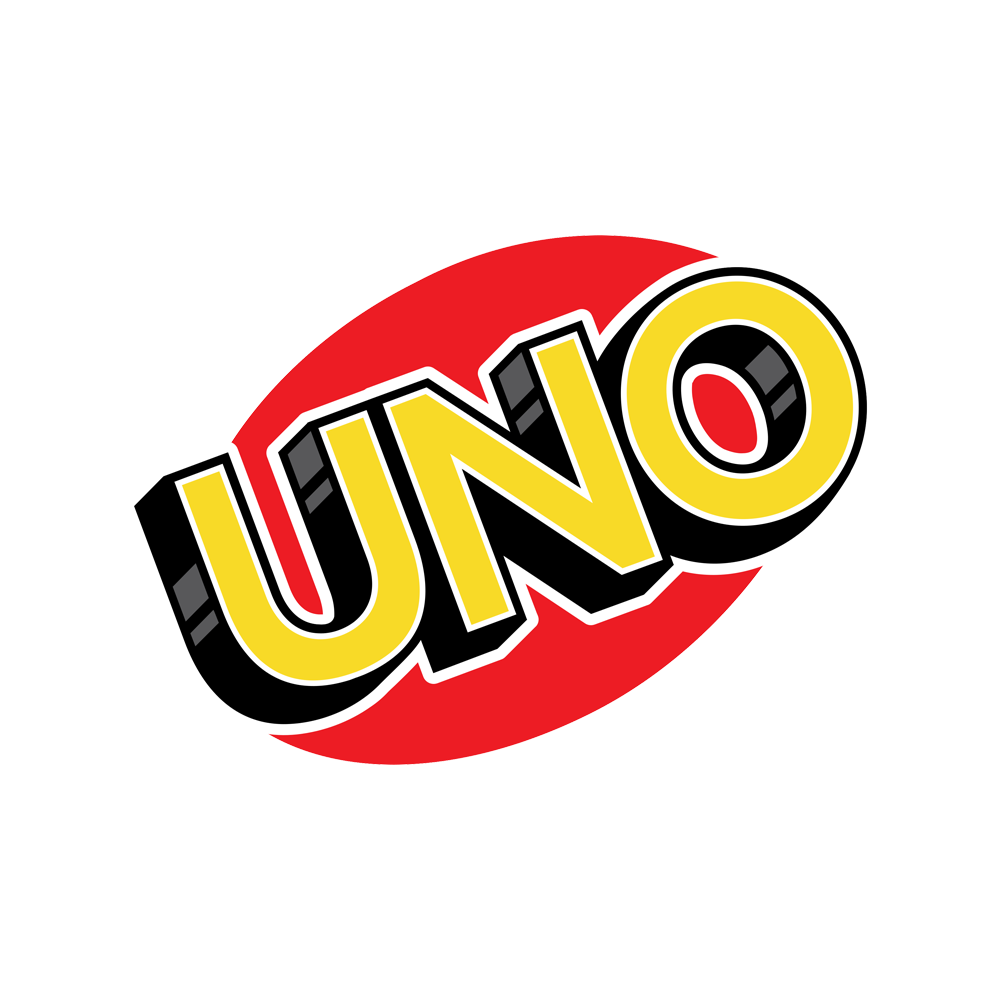
UNO Font
Fonts in UseUNO is a card game that was created by Merle Robbins in 1971. It is played using a specially printed deck, and players aim to be the first to get rid of all their cards by matching them to the top card in the discard pile, making it a game of strategy and luck.
The UNO logo uses Arial Bold designed by Patricia Saunders and Robin Nicholas. Cabin Condensed is a great free alternative.
The font used on the cards is Helvetica 97 Cond Black Oblique originally designed by Max Miedinger with Edüard Hoffmann.